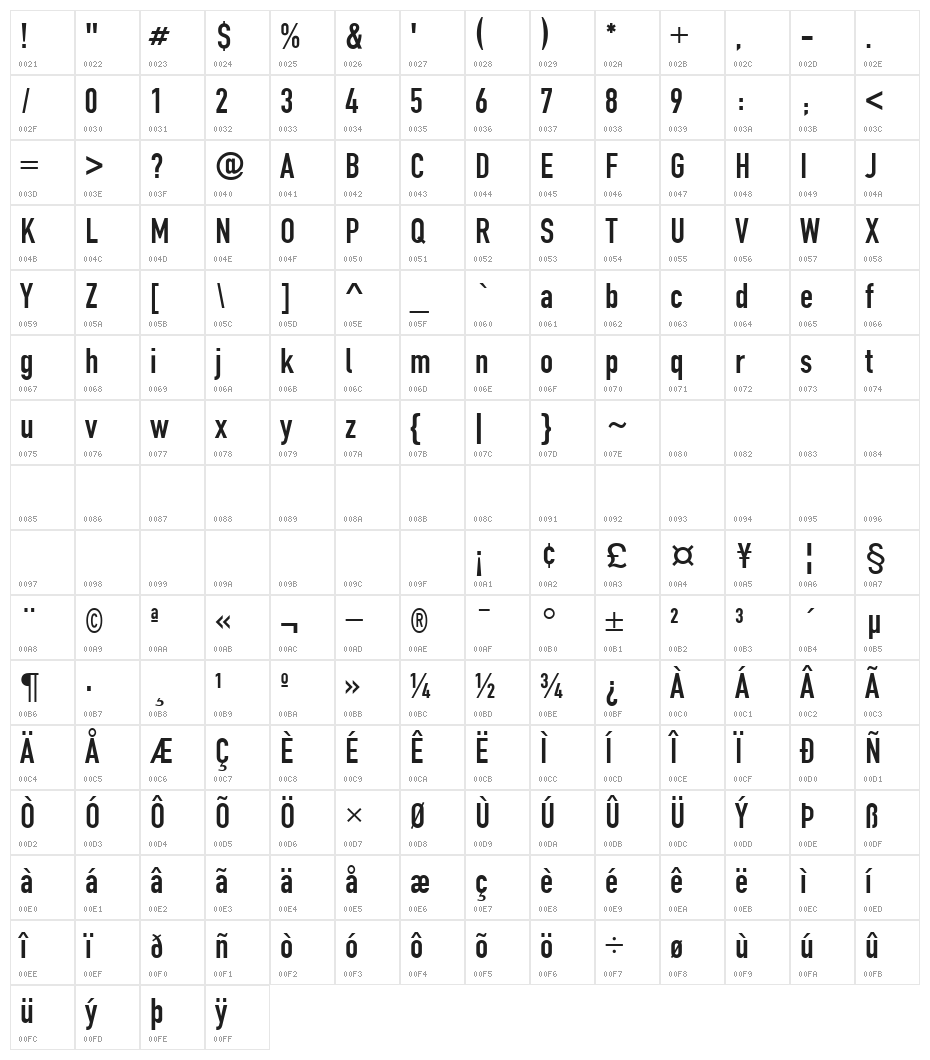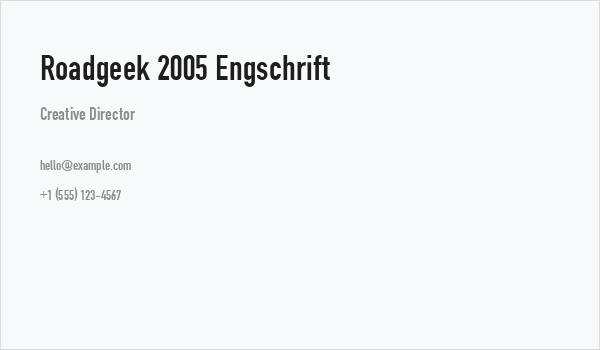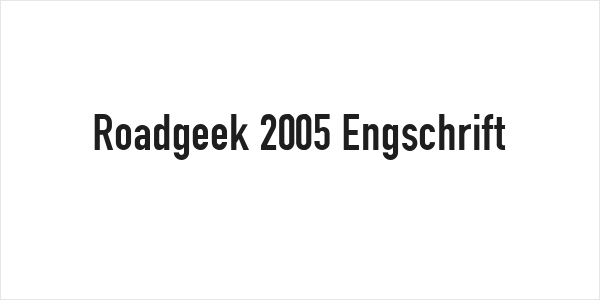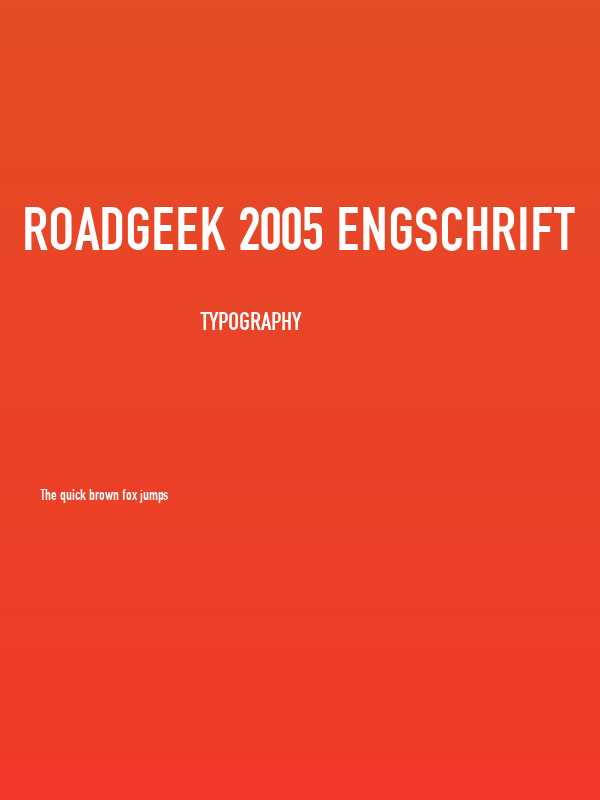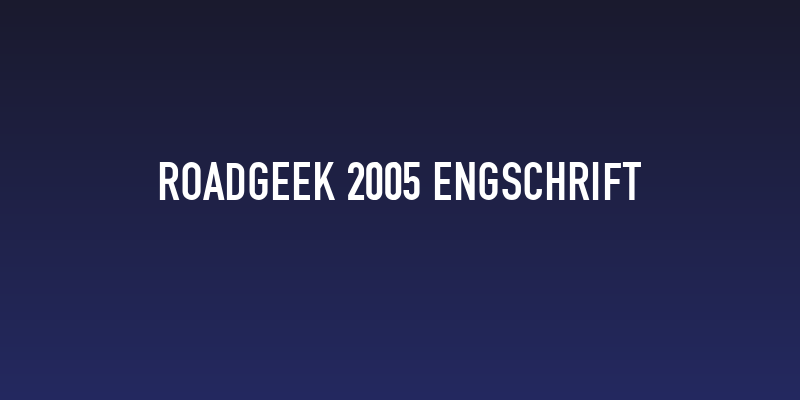
Roadgeek 2005 Engschrift Font
Roadgeek 2005 Engschrift Description
This font features a bold and condensed style, characterized by its tall, narrow letterforms. The uppercase letters are particularly striking, with a strong vertical emphasis that enhances readability from a distance. The lowercase letters maintain the same condensed structure, ensuring consistency across different text sizes. The numerals are clear and distinct, making them ideal for signage and other applications where clarity is paramount. The special characters are well-defined, complementing the overall geometric aesthetic of the font. Its clean lines and modern appearance make it suitable for a variety of uses, particularly in contexts where space is limited but impact is essential.
| Use Case | Headlines, Signage, Posters |
| Proposed Projects | Ideal for road signage, posters, headlines, and any project requiring high readability and impact. |